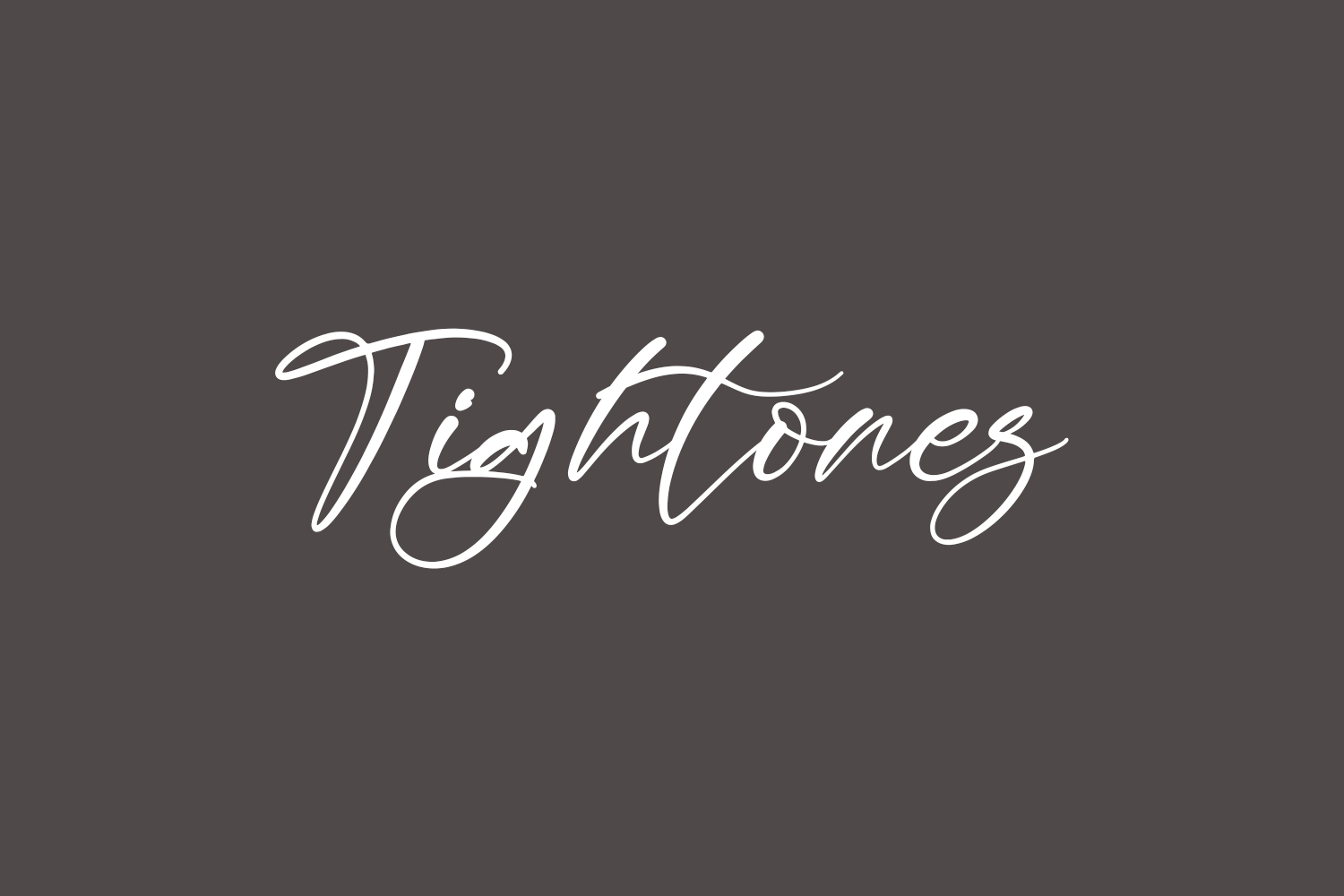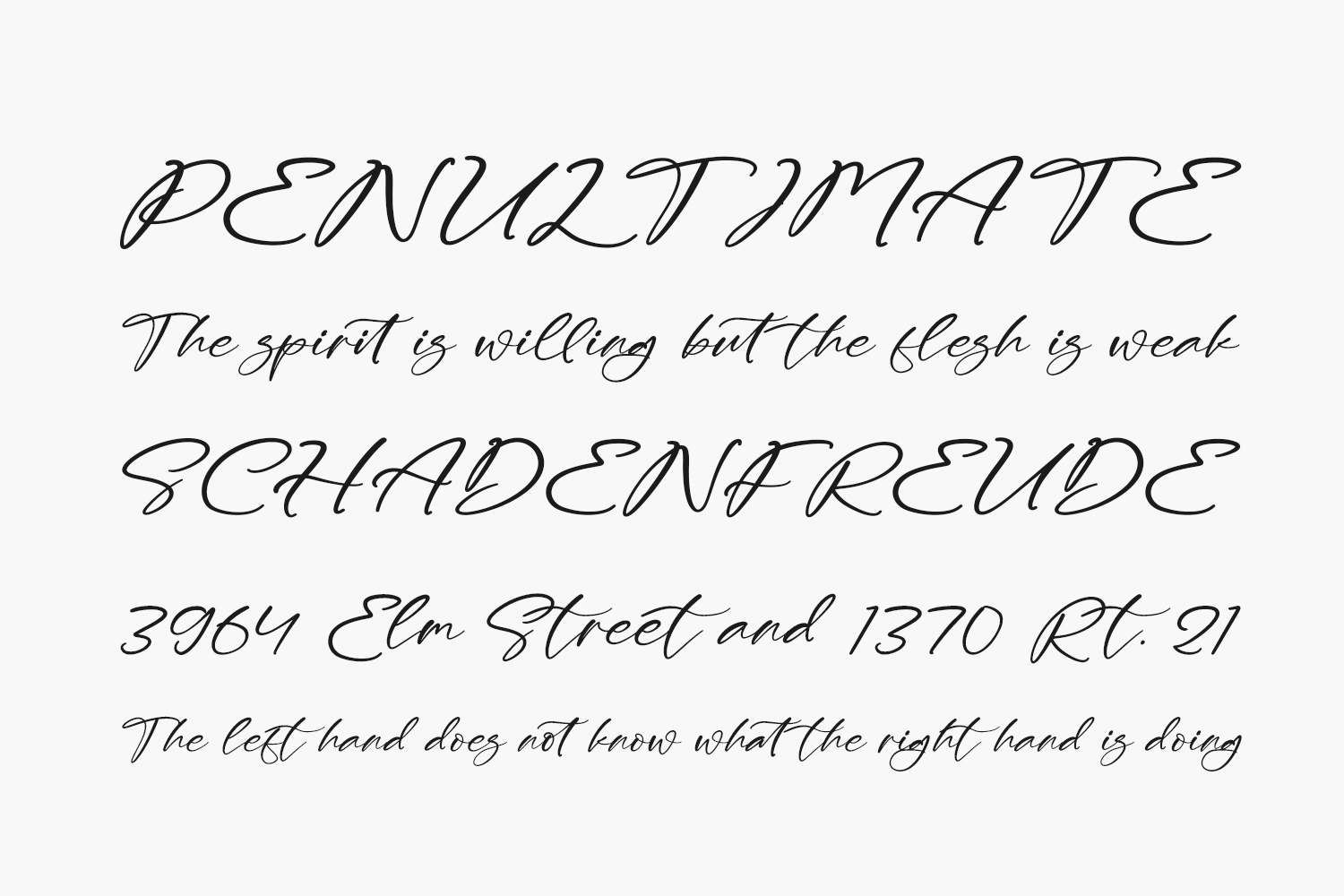
Introducing the Tightones Free Font – an elegant signature font designed to enhance various projects. This sophisticated font is perfect for logos, branding, homeware designs, product packaging, mugs, quotes, posters, shopping bags, t-shirts, book covers, name cards, invitation cards, greeting cards, labels, photography, watermarks, special events, and any other lovely projects in search of a beautiful script style. Elevate your designs with the exquisite touch of Tightones. Download the font for free if you need it for personal use or purchase the full version for commercial use.